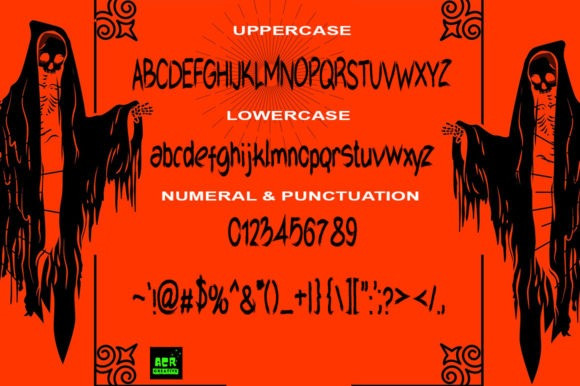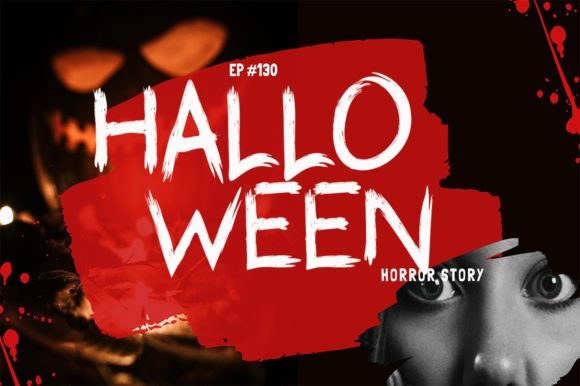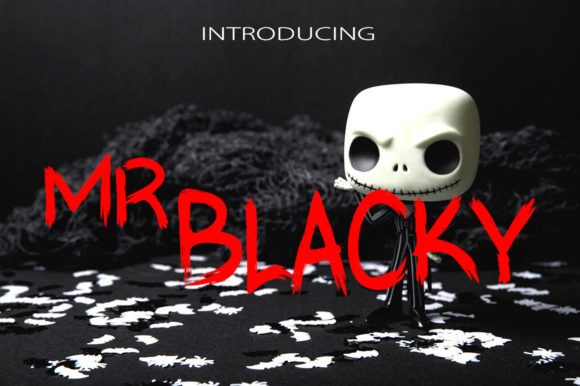
Mr Blacky Font
Mr. Blacky Brush Font is a display font that gives a spooky and scary vibe. You can create the feeling of fear in your designs by using this incredibly unique font!